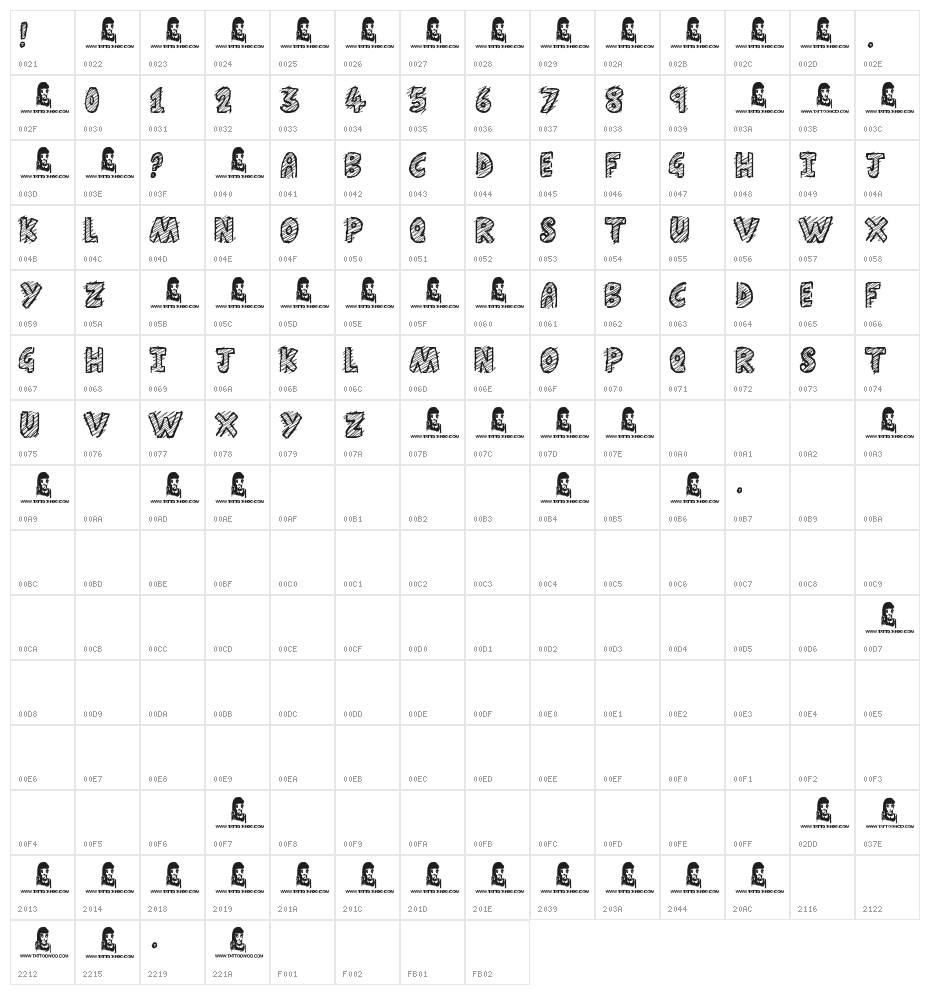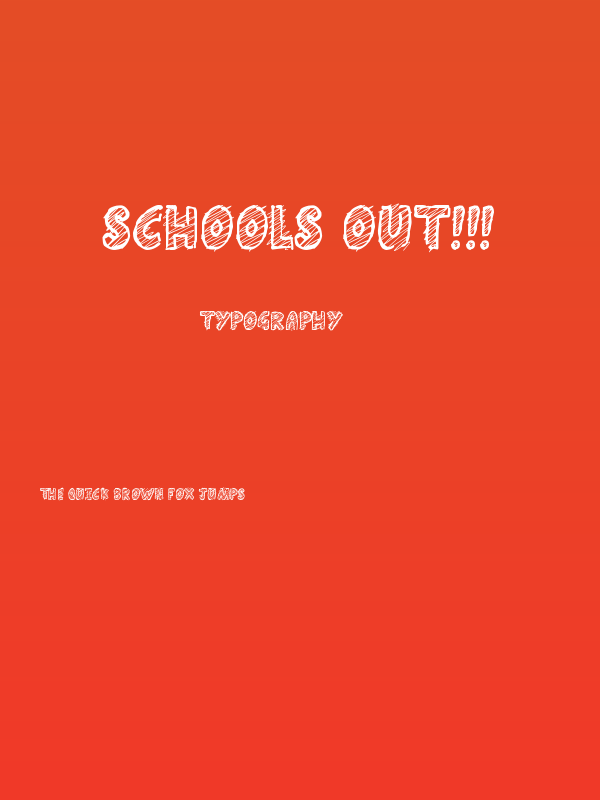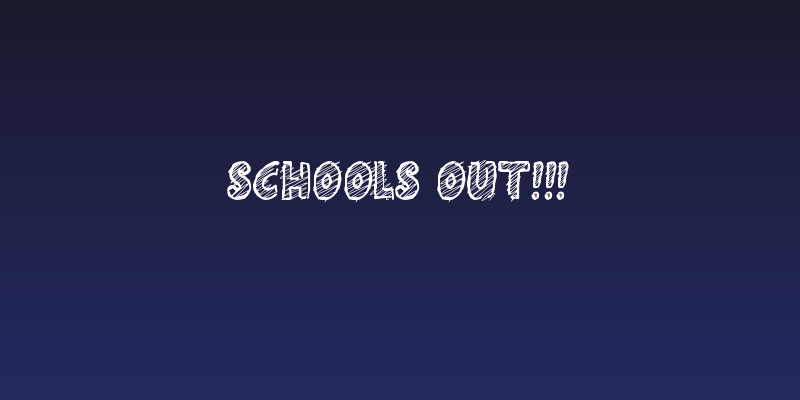
Schools Out!!! Font
| Stile generale | Playful, Artistic |
| Caso d'uso | Headlines, Posters, Creative Projects |
| Progetti proposti | Ideal for children's book covers, school event posters, creative invitations, and playful branding materials. |